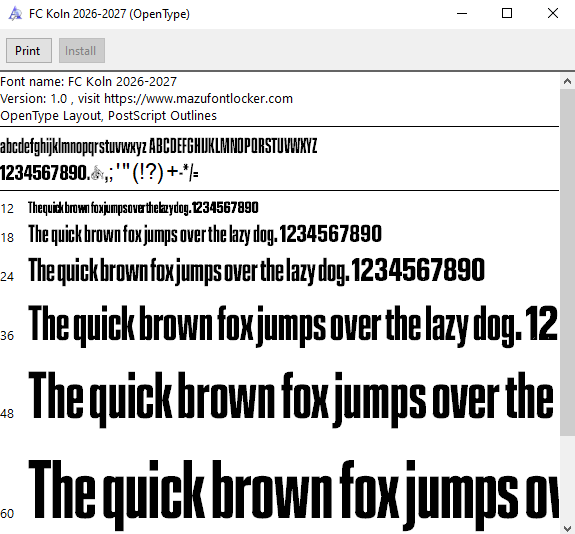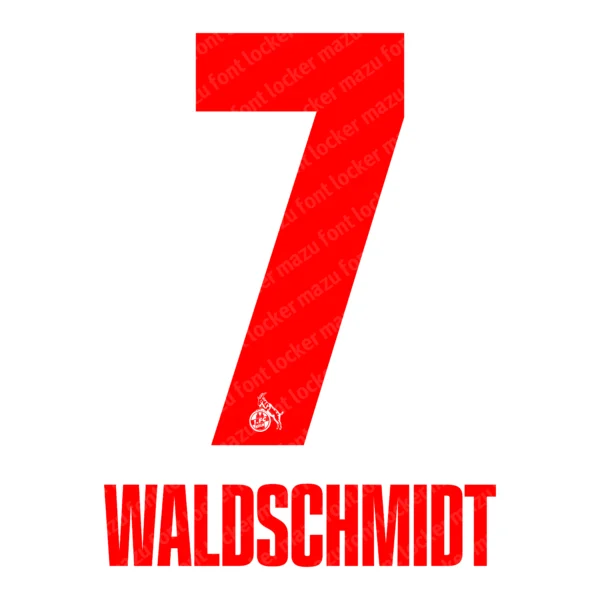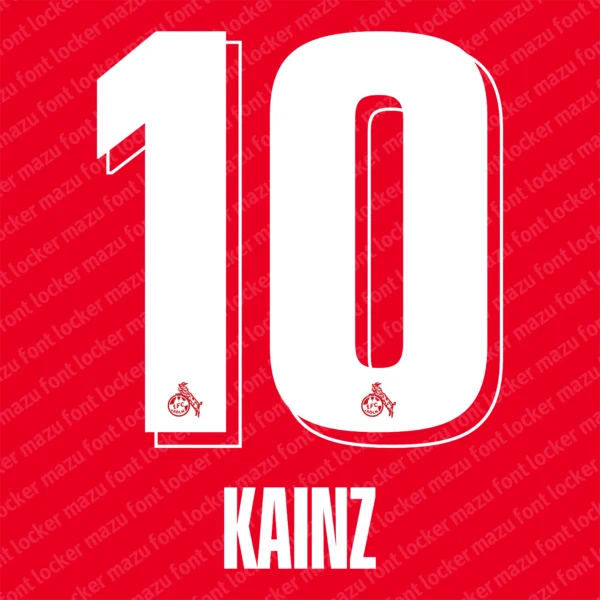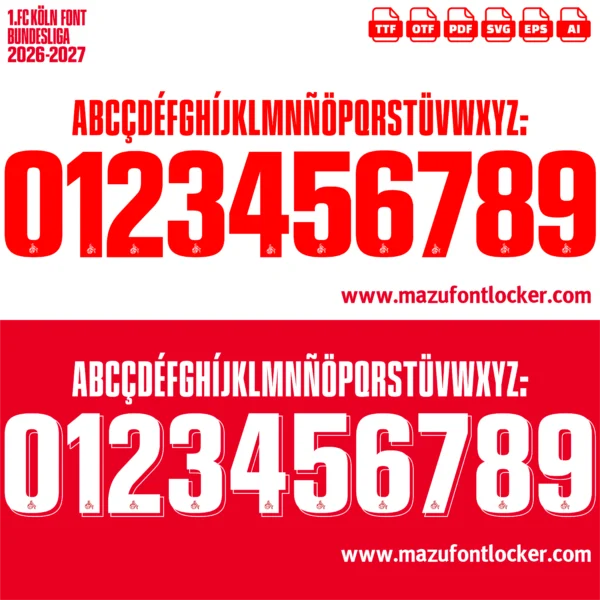
1.FC Köln 2026-2027 Font Vector – Epic Geißböcke Masterpiece
This font captures the commanding, crimson-edged, lightning-strike, and precision-engineered lettering that perfectly embodies 1.FC Köln’s iconic club identity, proud Cologne heritage, legendary red-and-white tradition, billy-goat spirit, and unstoppable German football power — delivering unmatched authenticity, premium quality, explosive energy, and elite Bundesliga & European competition intensity for professional jersey mockups, dynamic football graphics, premium sports branding, passionate fan creations, and high-end design projects.
1.FC Köln 2026-2027 Font Vector – Stunning Geißböcke Red & White Typeface
The 1.FC Köln 2026-2027 Font Vector is a premium typeface that accurately recreates the distinctive match lettering associated with 1. FC Köln during the 2026-2027 football season. This high-quality vector font kit captures the bold, clean, and instantly recognizable typography that perfectly complements the club’s iconic red and white identity.
This font stands out thanks to its precise vector construction and authentic club-inspired styling. Every letter and numeral has been meticulously recreated to match the distinctive football lettering aesthetic associated with 1. FC Köln during the 2026-2027 season and its domestic and European campaigns.
Whether you’re producing professional football kit templates, custom jersey concepts, or eye-catching football content, the 1.FC Köln 2026-2027 Font Vector delivers a genuine match-ready appearance inspired by the identity of Die Geißböcke.
The lettering featured in the 1.FC Köln 2026-2027 Font Vector combines clean geometric lines with bold modern proportions. The result is a premium and highly readable typeface that reflects 1. FC Köln’s proud football heritage, iconic red and white colors, Cologne identity, and passionate global fanbase.
• Complete uppercase A–Z alphabet and numbers 0–9 in authentic 1.FC Köln 2026-2027 inspired style
• Special 1. FC Köln badge glyph – Press the “:” (Colon) key to insert the club badge
The 1.FC Köln 2026-2027 Font Vector is an independently designed typeface package inspired by the official shirt lettering and visual identity associated with 1. FC Köln during the 2026-2027 football season. It has been carefully recreated for football enthusiasts, graphic designers, collectors, jersey creators, and fans producing custom football concepts, digital artwork, and fan-made projects. Please note that this is a fan-made design resource and is not an official product of 1. FC Köln, the Bundesliga, UEFA, or any associated organization.